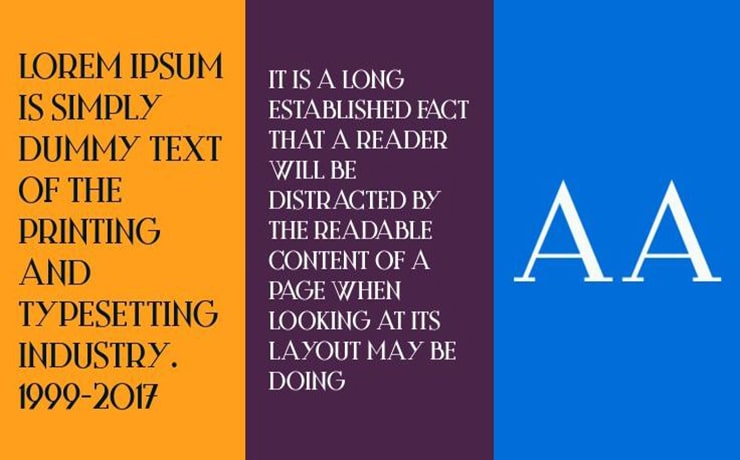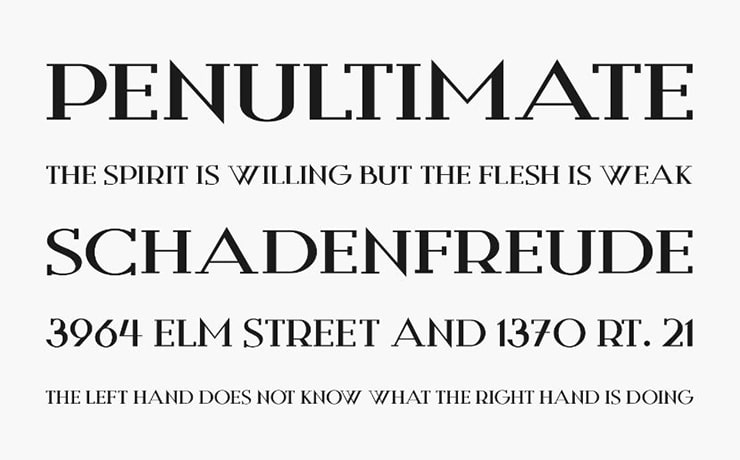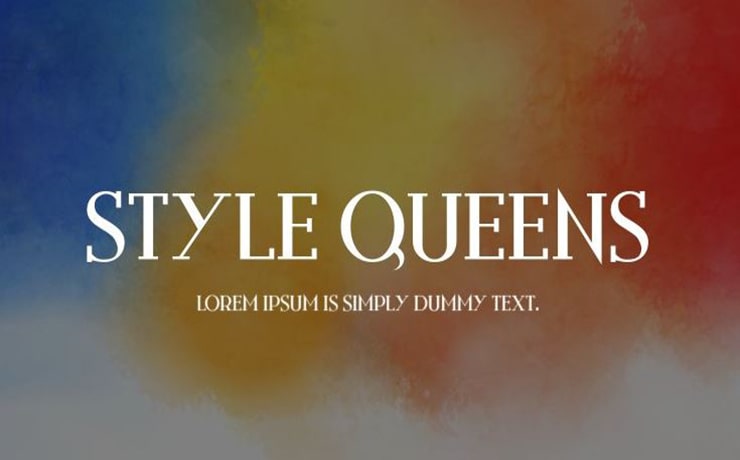
Style Queens Font is a basic serif typeface featuring an elegant decent texture. It may look awesome and distinctive if you use it for design titles, art quotes, or branding.
Darrell Flood is who takes the credit for creating and launching it for the first time.
All letters are best looking with x-height just to deliver the right message to the reader. In this case, if you also want a solid display look in design then this really the best option for you.
And its most simple and interesting serif look that maintains a proper baseline with proper height and width which makes it perfect for screen display and legibility.
It is ideal for composing books, long paragraphs, logos & branding, stationery, social media posts, title designing, posters making, invitations, printing in the fabric industry, and more.
This Font family comprises two unique styles including regular and italic that possess both Open Type and File Format features.